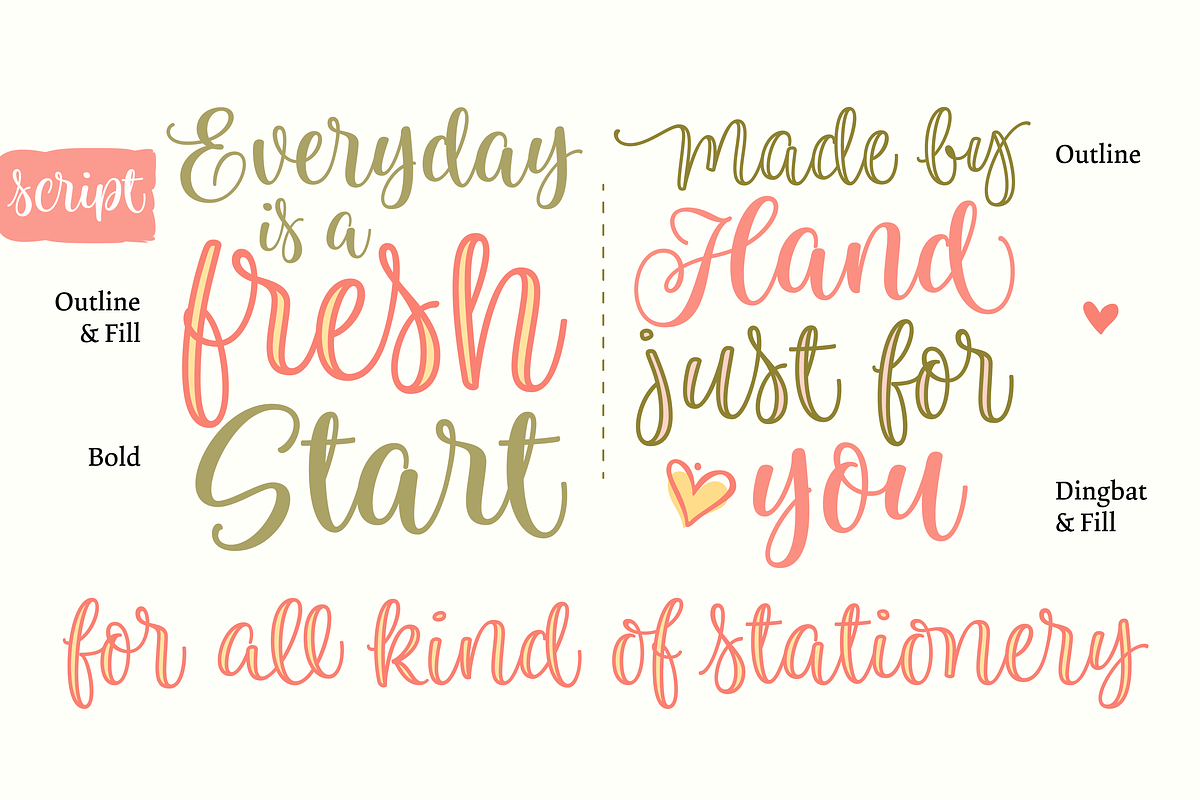
Limon Font Script Outline Free Download is a fresh and modern script typeface with an elegant outlined style that adds a unique flair to any design. Perfect for fashion branding, product packaging, modern invitations, and lifestyle blogs, Limon stands out with its stylish handwritten look and trendy outline effect.
This font brings a sense of lightness and creativity to your projects. Its smooth curves and open style make it perfect for both minimalist and expressive designs. Limon includes a variety of alternates and ligatures, giving you plenty of room to personalize your typography.
Whether you're designing for digital or print, Limon Font Script Outline Free Download adds a playful yet refined touch to your work. Download the demo today to explore its creative possibilities and elevate your designs with its distinctive charm.